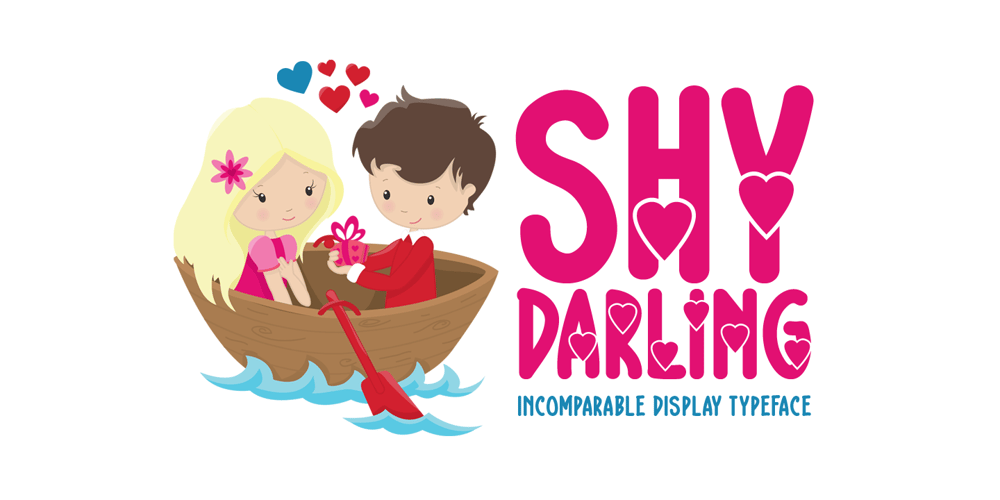
Shy Darling Font Family was designed by Md Shohail Bhuian and published by Seemly Fonts. Shy Darling contains 1 styles and family package options. Shy Darling is a cool and romantic display font. It is perfectly suited for stationery, logos, t-shirt, paper, print design, website header, photo frame, flyer, music cover, poster, image slider, and much more.